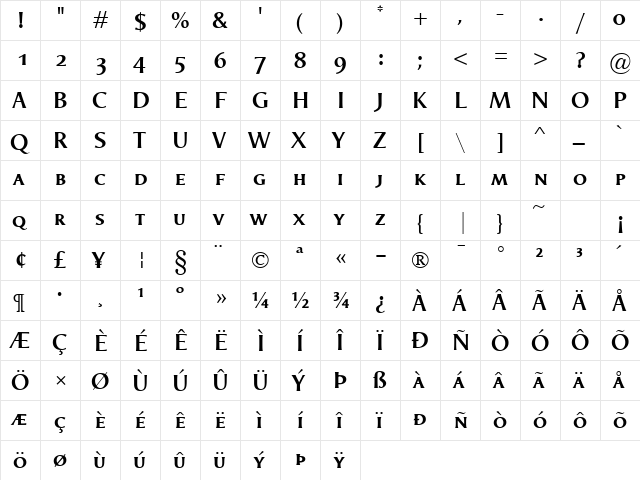
Odense SmallCaps DemiBold
Design Context for Odense SmallCaps Typeface
Odense SmallCaps takes a measured approach to typography — its balanced proportions and neutral character make it a reliable workhorse for both digital and print work. The heavy weight commands attention and anchors typographic hierarchies.